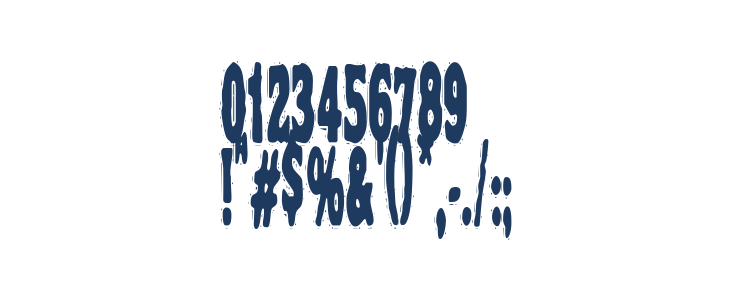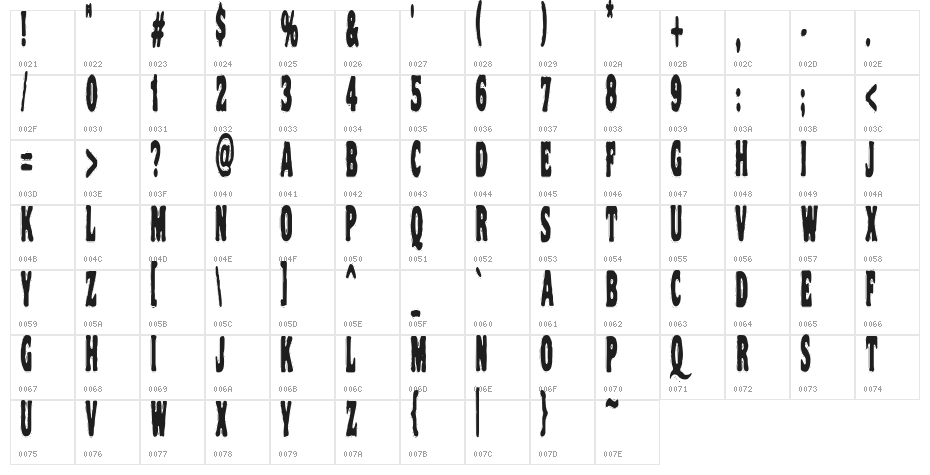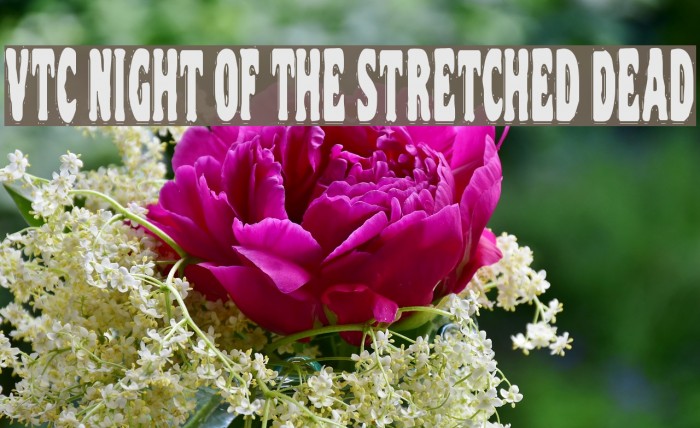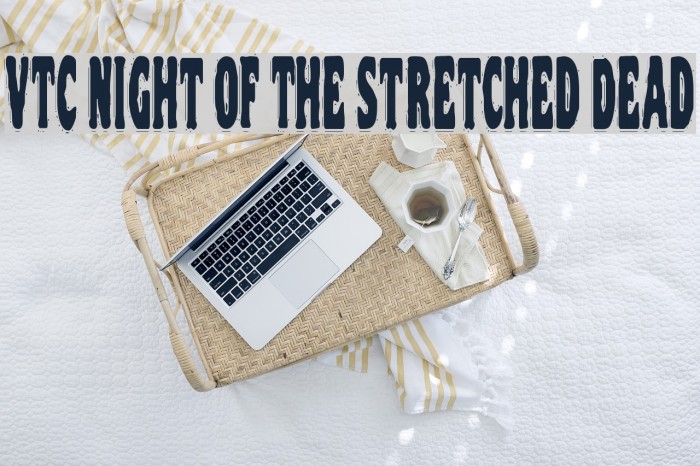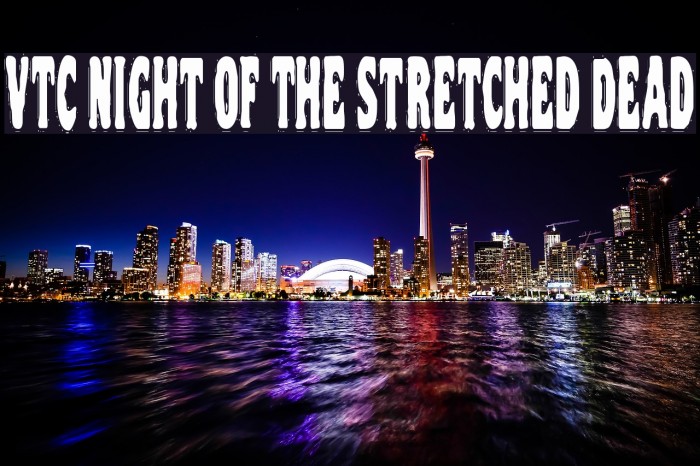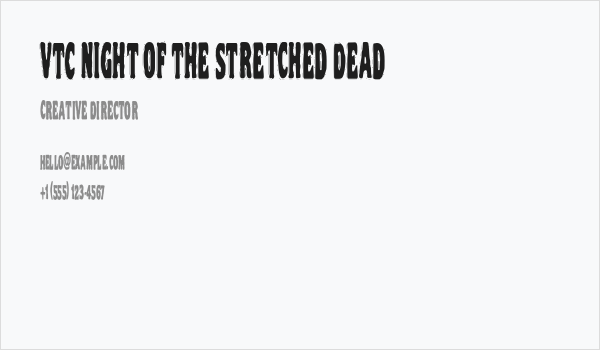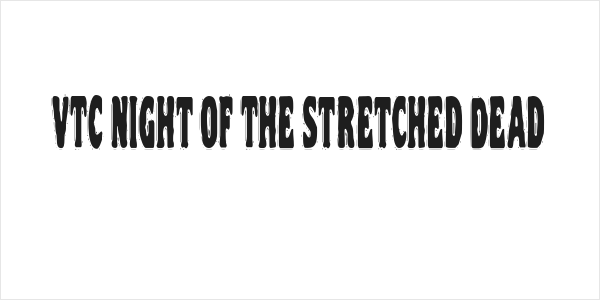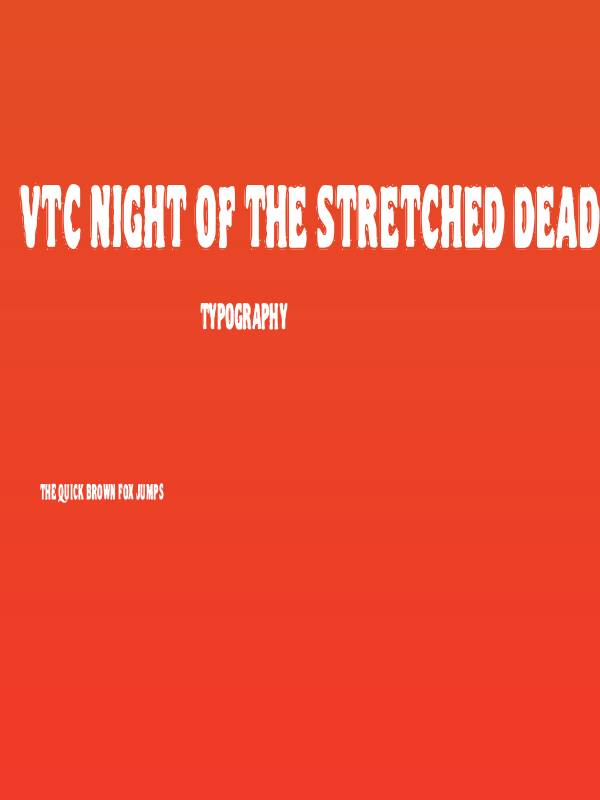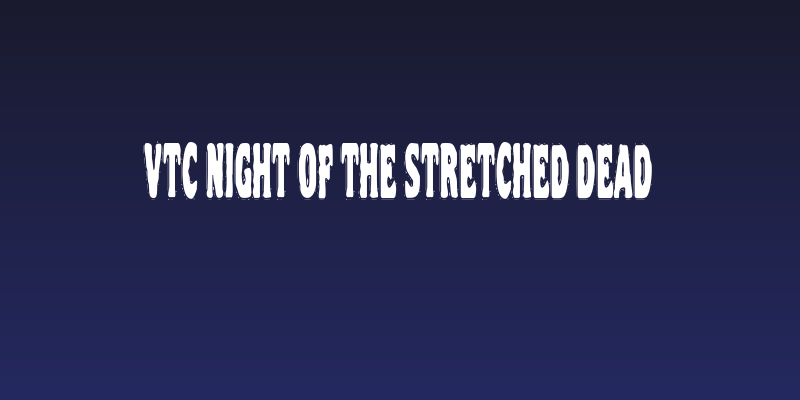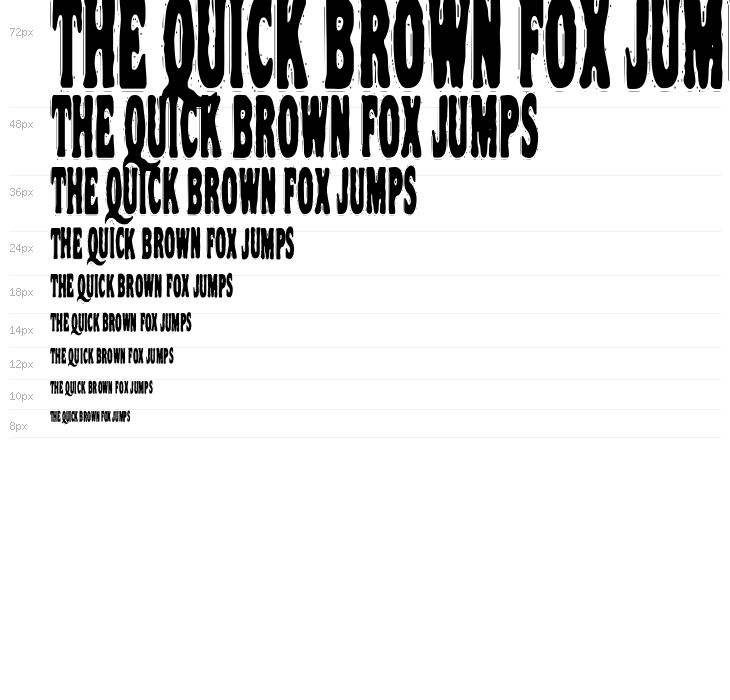
VTC Night Of The Stretched Dead Font
VTC Night Of The Stretched Dead Description
This font features a highly decorative and distressed style, reminiscent of horror or Halloween themes. The characters are elongated and appear stretched, with irregular edges that give a sense of decay or erosion. The uppercase and lowercase letters maintain a consistent height, contributing to a uniform yet chaotic appearance. The numerals and special characters follow the same distressed aesthetic, enhancing the overall eerie and unsettling vibe. This font is designed to capture attention and evoke a sense of mystery or fear, making it ideal for thematic projects.
| Proposed Projects | Ideal for Halloween posters, horror movie titles, themed event invitations, or any project requiring a spooky, dramatic flair. |